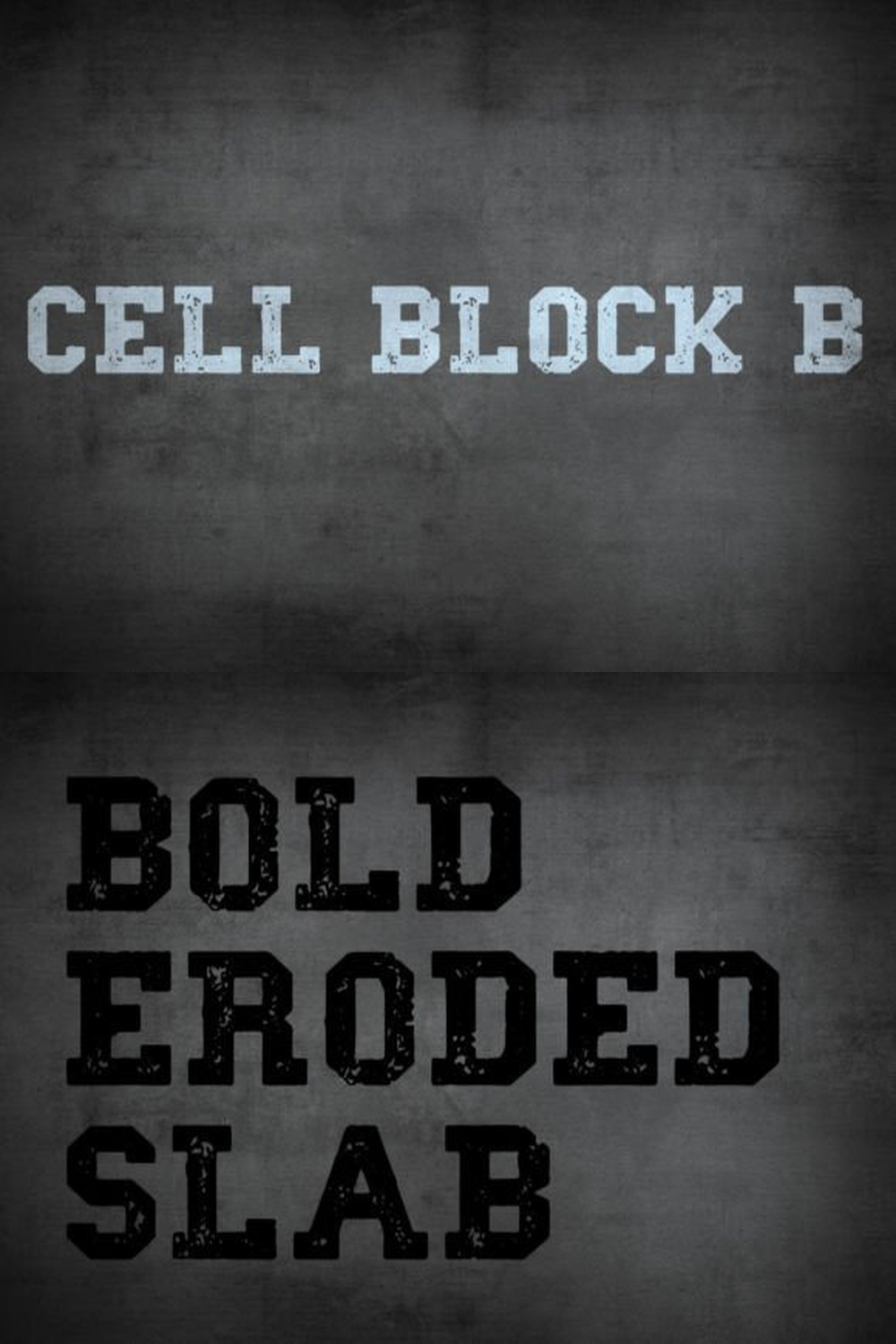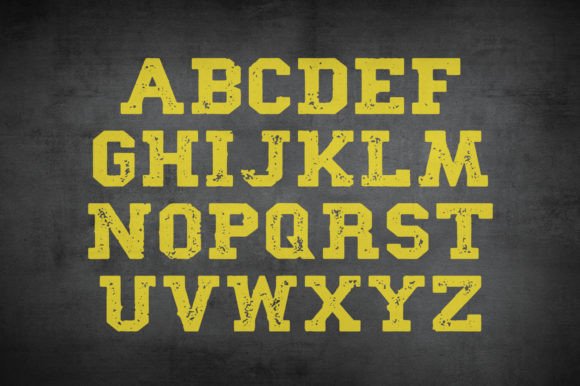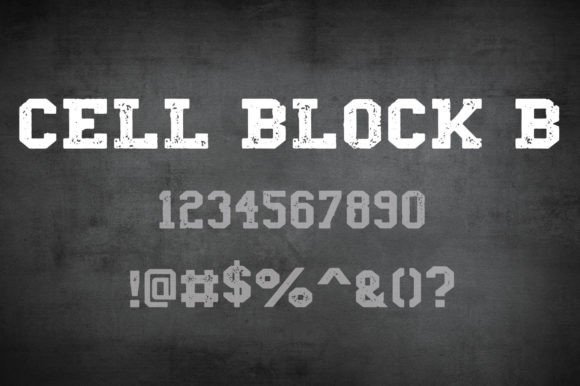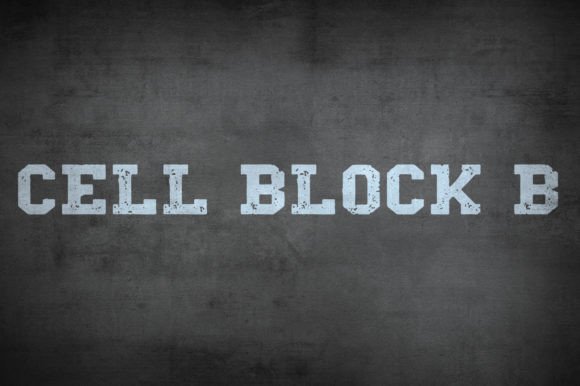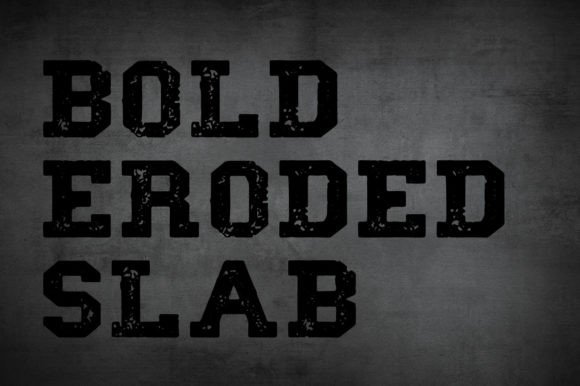
Cell Block B Font: Bold Grunge Display for Distressed Vintage Designs
About the Cell Block B Font
The Cell Block B Font offers a perfect balance of form and function for your design needs. This bold eroded slab serif display font was crafted to appear distressed and is perfect for vintage designs and posters. Add it confidently to your projects and you will be amazed by the outcome generated!